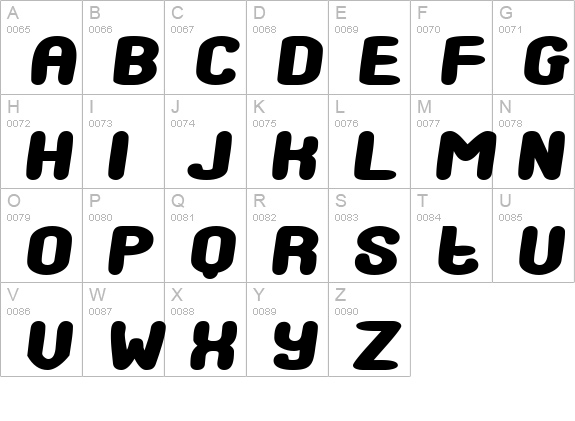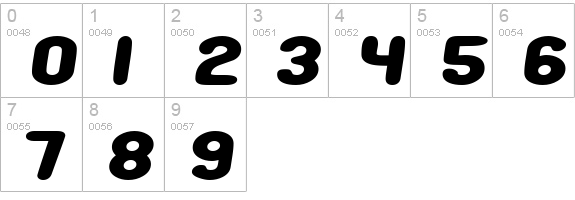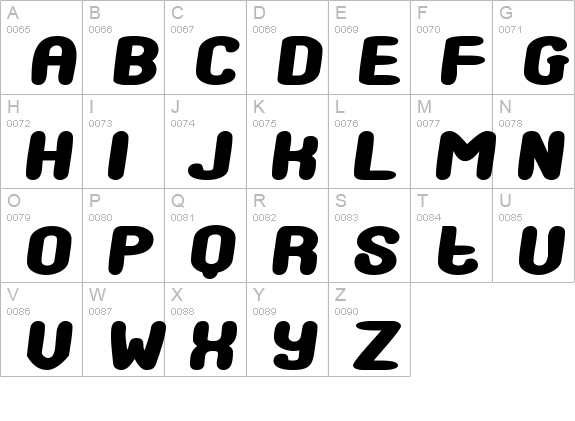
Indulge in the rich and delectable allure of Chocolate font, a delightful typeface that exudes sweetness and charm. Designed with a touch of elegance and a hint of playfulness, Chocolate font is perfect for adding a touch of sophistication to your designs. Its smooth curves and intricate details will captivate your audience and leave a lasting impression. What makes Chocolate font even more irresistible is that it is available for free download at FontsMarket.com. This means you can easily access this delectable font and use it in your projects without any cost. Whether you're creating invitations, branding materials, or social media graphics, Chocolate font is sure to add a touch of sweetness to your designs. So go ahead, satisfy your design cravings with the delectable Chocolate font today!